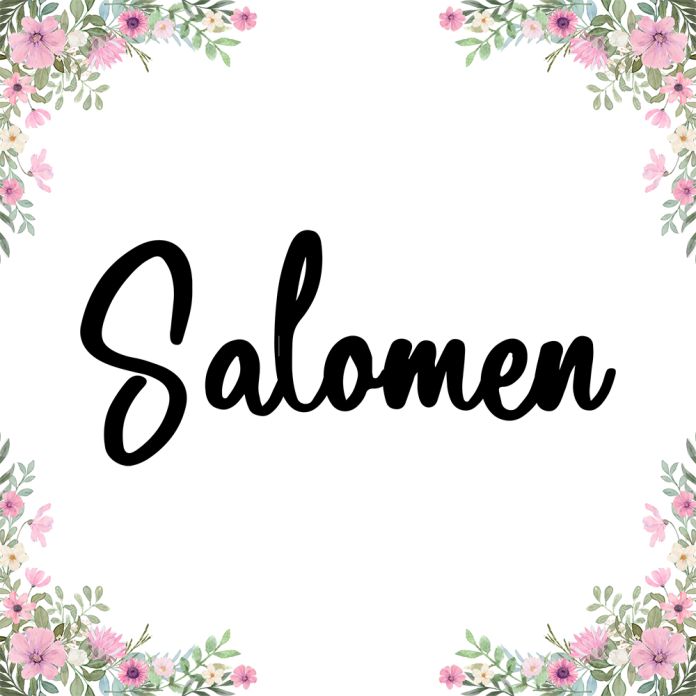
Salomen is a sweet and delicate handwritten font. Dainty and joyful, this font will be ideal for writing wedding invitations, cards, or any other design that may need a romantic, personalized touch!